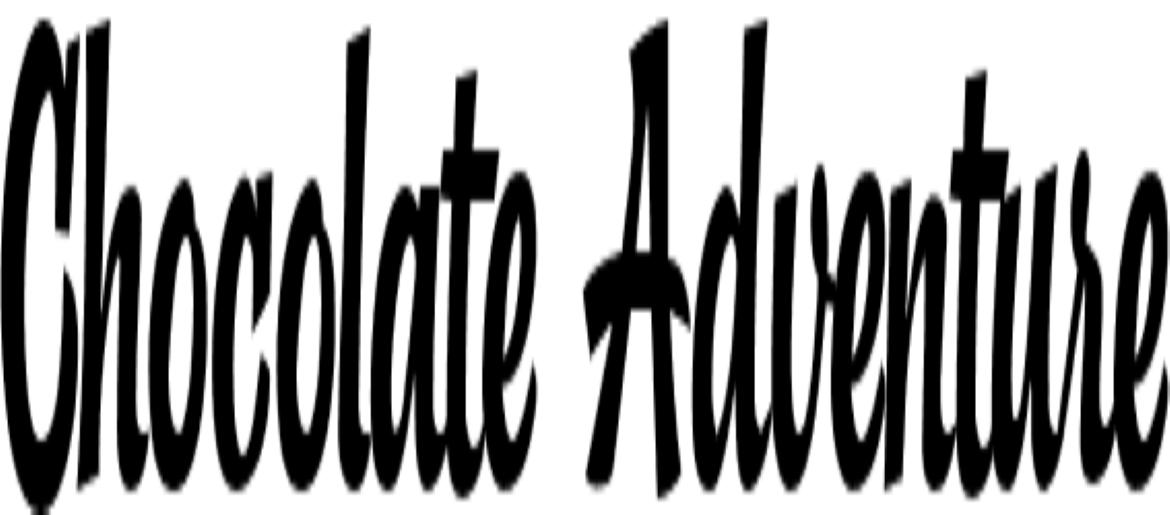
Chocolate Adventure Font
Chocolate Adventure font
Chocolate Adventure Font is a playful, chunky display typeface inspired by sweetness and fun storytelling. Its rounded, bouncy letterforms give a warm, candy-like feel, making it perfect for children’s designs, packaging, posters, and creative branding. Chocolate Adventure adds charm, energy, and a delightful sense of fun to any project.